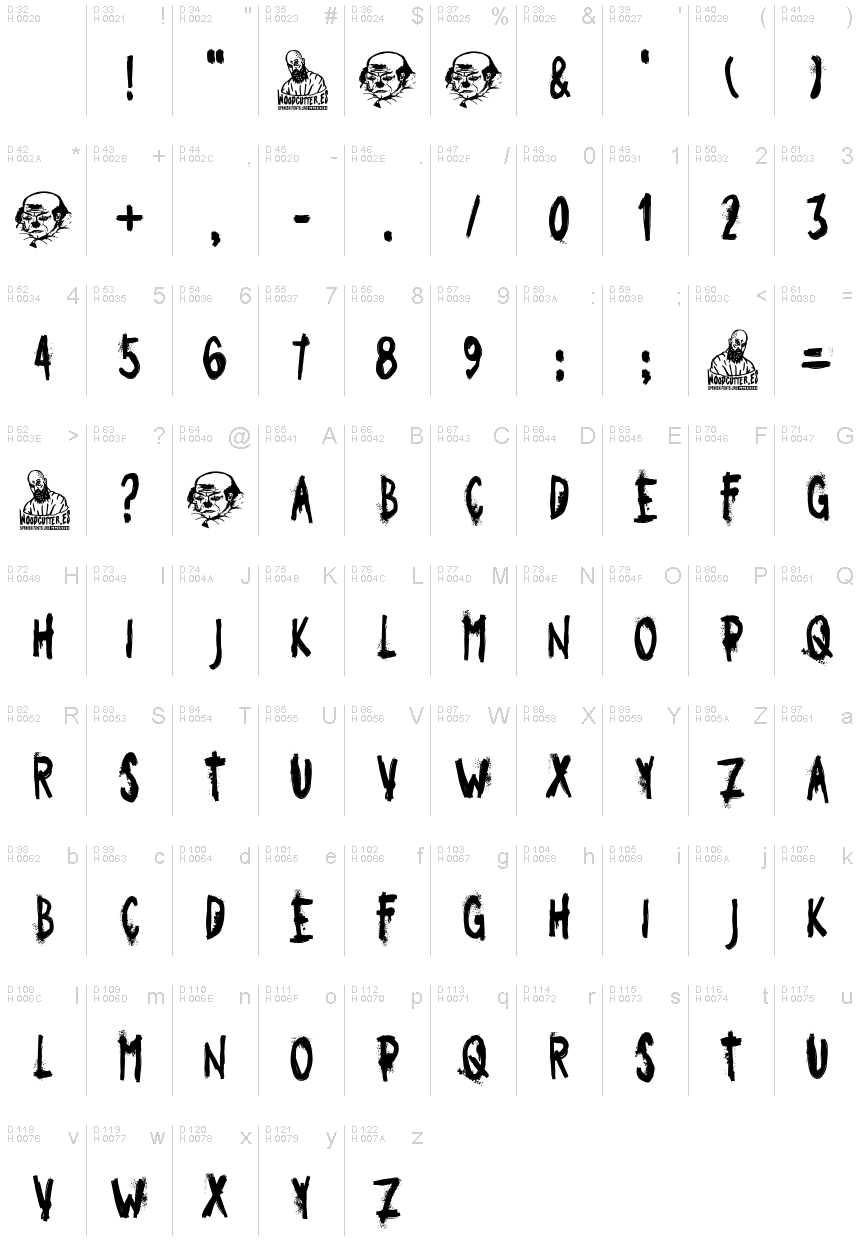
Payaso Triste
Payaso Triste - a font that evokes a haunting, spine-chilling atmosphere. Crafted by the skilled Woodcutter, this display-style font boasts a captivating, almost sinister aesthetic.
The jagged, irregularly spaced letterforms convey a sense of unease, with sharp edges and a distorted, unsettling quality that commands attention. This condensed font's striking presence makes it well-suited for horror-themed designs, haunted house branding, and ominous chapter titles. Its unique character and unsettling vibe lend it an air of mystery, perfect for creating an atmosphere of suspense and dread.
Whether used in posters, book covers, or even Halloween invitations, Payaso Triste is a font that leaves a lasting impression, beckoning the viewer to delve deeper into its dark, enigmatic realm.